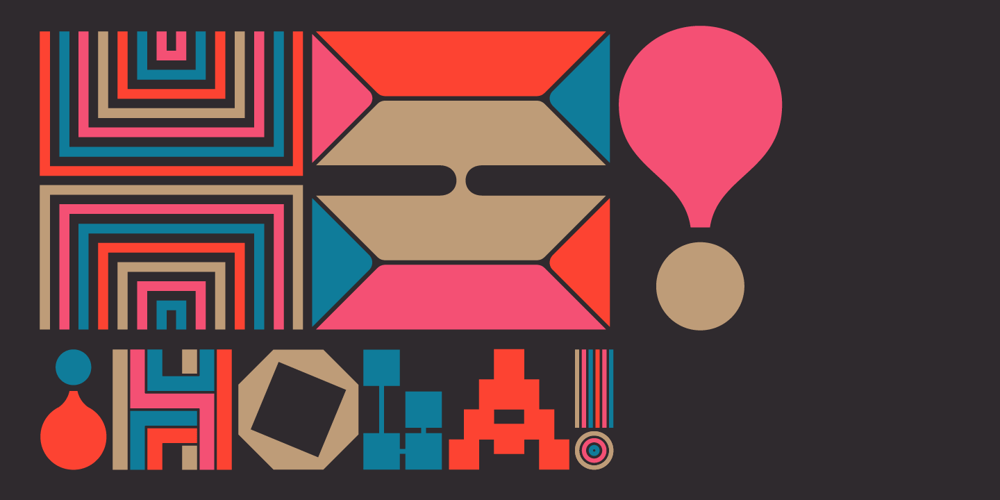
Ragtag
Ragtag font
Ragtag Font Family was designed by Alexander Wright and published by In-House International. Ragtag contains 1 styles and family package options. Ragtag is an adventurous display font that’s fun, graphic and loud. The font features three irreverent, geometric variations for each letterform, plus a few extra goodies like eñes and diacritics so it’s ready to use En Español. Ragtag creates harmonies from the fully interchangeable collection of letters. Each letter is unique and designed so it composes beautifully with all others — but can also stand on its own as an accent piece or as part of a design.Ragtag is inspired by the scattered crew of makers and designers from design studio In-House International–a fully remote creative home based in Austin, TX. The design of Ragtag was led by Alexander Wright and digitized by Rodrigo Fuenzalida.